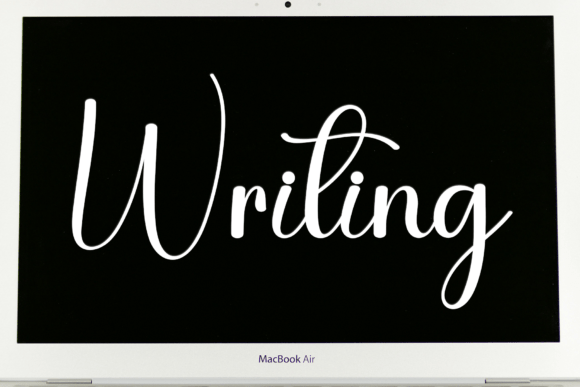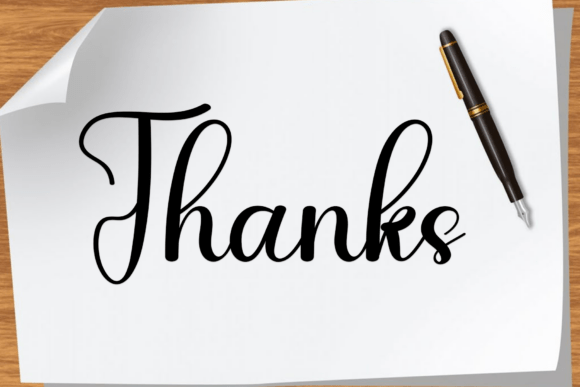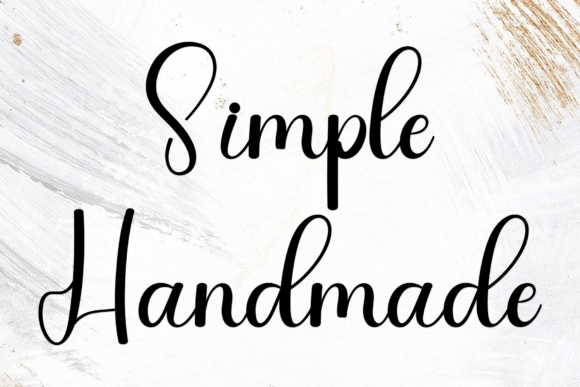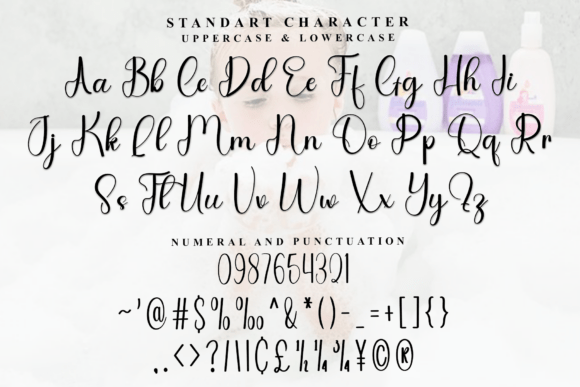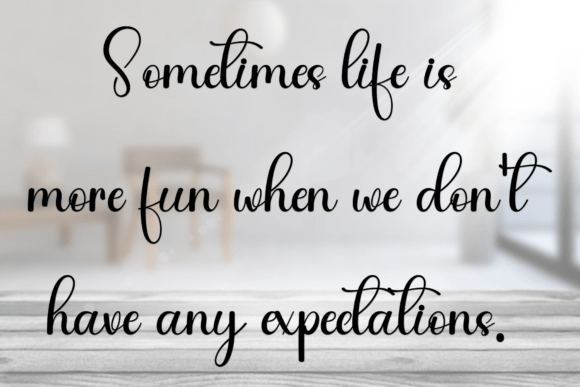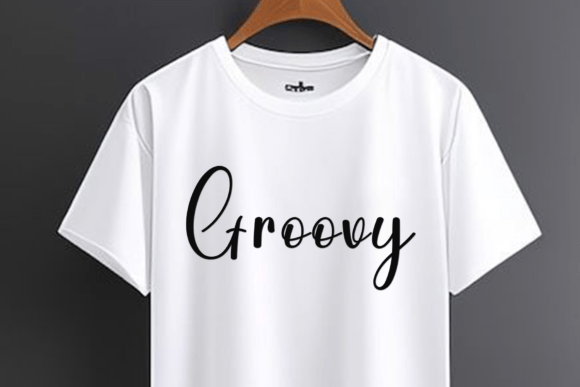
Discover the Magic of the California Enchanting Font
Have you ever stumbled upon a font that makes you feel like you’re walking along a sun-kissed California beach, the sound of waves gently crashing against the shore? For many designers, that moment of discovery is what sparks creativity and sets the tone for an entire project. For me, it was the moment I laid eyes on the California Enchanting Font – a casual and creative font that exudes warmth and friendliness.
Perfect for personal projects, invitations, and social media graphics, this font is a game-changer for designers looking to add a touch of personality to their work. With its round, playful strokes and charming, hand-drawn aesthetic, the California Enchanting Font is sure to leave a lasting impression. Whether you’re a seasoned pro or just starting out, this font is a valuable addition to any designer’s toolkit.
California Enchanting Font Key Features
- Font Family: California Enchanting
- Font Styles: Regular, Bold, Italic, Bold Italic
- Unique Characteristics: Hand-drawn design, elegant and whimsical feel, perfect for creative projects, wedding invitations, and packaging design
California Enchanting Font Review
First off, I have to say that I’m thoroughly impressed with the dreamy quality of this font. ✨ The rounded edges and subtle flair on the letters evoke a sense of California charm that’s perfect for branding a boutique hotel or a wellness retreat. The font is remarkably versatile, making it suitable for both digital and print applications. ✨ The weight range is generous, allowing you to choose from light, regular, and bold versions to match your design needs.
However, I do have a few reservations about the font’s functionality. ⚠️ The font is not optimized for small text sizes, which can make it difficult to read in certain contexts. Additionally, some of the characters, like the lowercase ‘a’ and ‘g’, can be slightly inconsistent in their design. ⚠️ Furthermore, I found the font’s licensing terms to be a bit restrictive, limiting the number of devices you can install the font on.
While the California Enchanting Font has its limitations, its unique character and design make it a great choice for certain projects. With some careful planning and consideration of the font’s limitations, it can be a fantastic addition to your design toolkit.
Recommendation
I would recommend this font to designers who are looking for a distinctive and charming font for a specific project. However, I would caution against using it as a go-to font for more general design projects.
Getting the Most Out of the California Enchanting Font
To get the most out of the California Enchanting Font, use it in conjunction with other decorative elements, such as illustrations and graphics. This will create a cohesive and visually appealing design. Additionally, experiment with different font sizes and styles to add depth and interest to your design.
The California Enchanting Font is well-suited for use in invitations, greeting cards, and other social media graphics. Its whimsical and elegant style makes it perfect for creating eye-catching designs that are sure to grab attention.